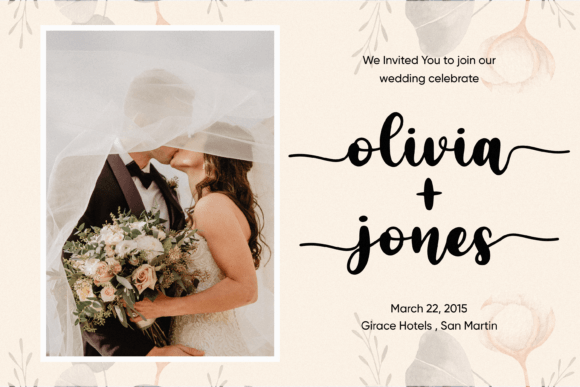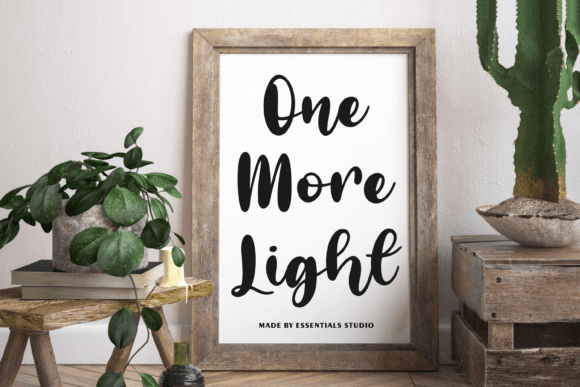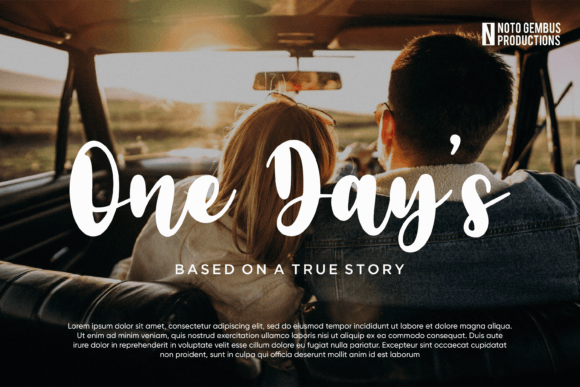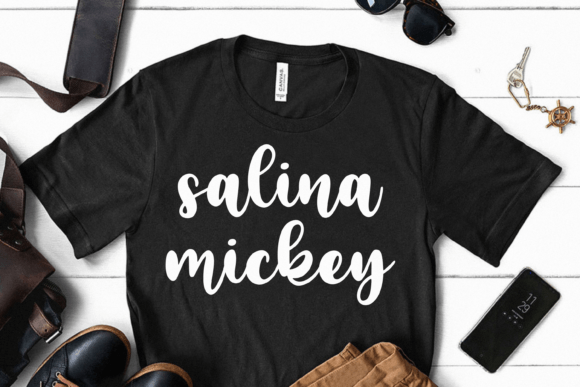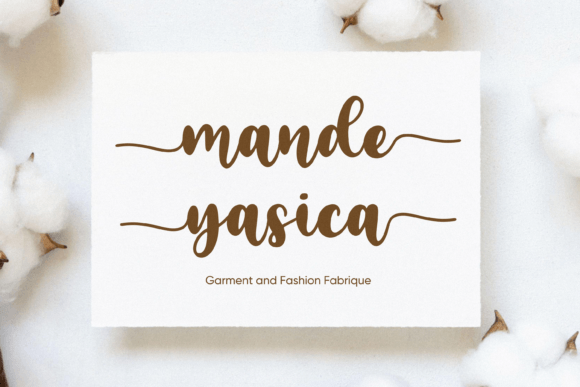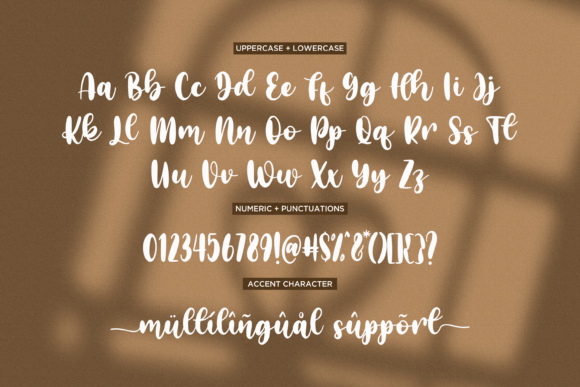
The Perfect Handwritten Touch: Catchy Sunday Font
Have you ever been brainstorming a design project, flipping through your sketchbook, and suddenly, a spark of inspiration hits? You envision a beautiful, elegant handwritten font that perfectly captures the essence of your creation. For designers, this moment is a treasure trove of possibilities. That’s where the Catchy Sunday Font comes in – a stylish and sophisticated handwritten font that adds a touch of warmth and personality to any design.
Catchy Sunday Font is a versatile tool for designers, perfect for wedding invitations, thank you cards, quotes, greeting cards, logos, business cards, and more. Its elegant script style makes it an instant favorite among designers seeking to add a handwritten touch to their projects. With the Catchy Sunday Font, you can create designs that exude sophistication and charm, making it a valuable addition to any designer’s toolkit.
Catchy Sunday Font Key Features
- Font Family: Catchy Sunday Font is a unique, handwritten font designed to evoke a sense of playfulness and creativity.
- Unique Characteristics: Features a mix of handwritten and brush script styles, with subtle imperfections and texture, giving it a natural, organic feel.
Catchy Sunday Font Review
I recently had the chance to work with the Catchy Sunday Font, and I must say it’s a unique addition to any design project. ✨ The font’s playful and casual vibe immediately drew me in, and I enjoyed experimenting with its various styles to see what kind of effects I could achieve. ✨ The font’s ability to convey a sense of approachability and friendliness makes it perfect for projects that require a more relaxed tone.
- Playful and casual vibe
- Highly versatile, suitable for a range of projects
- Easily conveys a sense of approachability and friendliness
- Wide range of styles to choose from
However, I did encounter some limitations that prevented me from fully realizing my design vision. ⚠️ The font’s readability can be a bit compromised at smaller sizes, and the bold styles can sometimes feel a bit too chunky. Additionally, the font’s lack of support for certain languages may limit its usability in global design projects.
- Readability can be compromised at smaller sizes
- Bold styles can feel too chunky
- Lack of support for certain languages
Overall, I think the Catchy Sunday Font is a great choice for designers looking to add some personality to their projects. While it may have some limitations, its unique charm and versatility make it a worthwhile addition to any design library.
Use the Catchy Sunday Font for creative projects that require a playful and whimsical touch. Pair it with bold colors and fun graphics to create eye-catching designs.
Experiment with different font sizes and styles to create visual interest and emphasis.
The Catchy Sunday Font is perfect for:
Designing social media graphics and advertisements.
Creating invitations and party decorations.
Developing brand identities and logos.